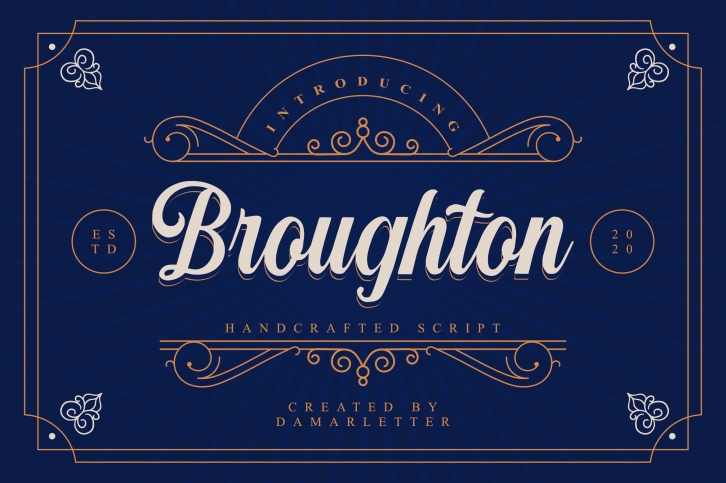
Broughton is a great font that was designed by Damarletter. Imagine the amount of combinations you can create using this font! The archive is 17.83 MB and it was released on November 27, 2020. Broughton looks beautiful on wedding invitations, greeting cards, logos, posters, labels, t-shirt designs, logos, business cards and is perfect for use in ink or watercolor works, fashion, magazines, packaging and food menus, children's books and more!